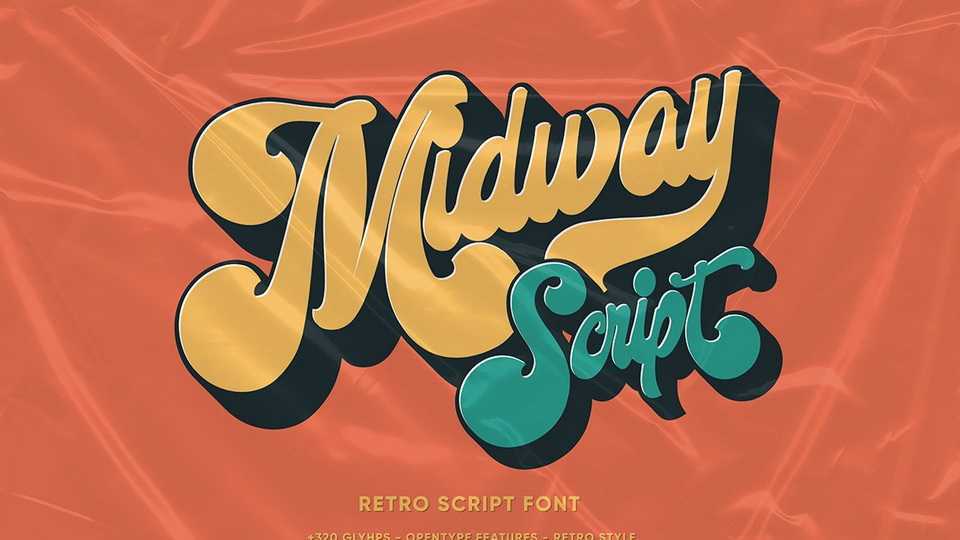
Download Midway font, a bold script typeface to make a retro design with ease! Midway is really perfect for logo design, t-shirt, vintage and retro badge, vintage quotes, branding, packaging, etc.
Designer: Bluetype